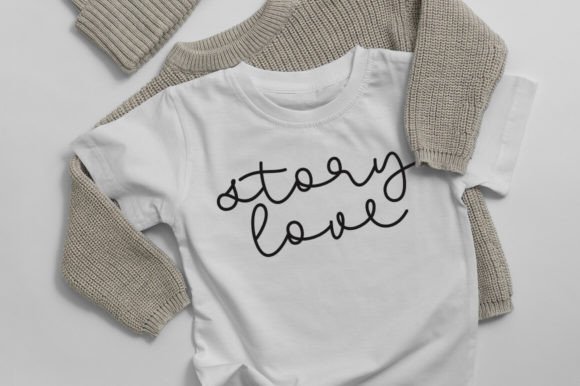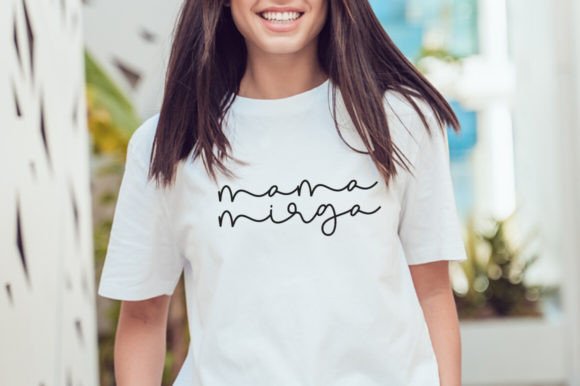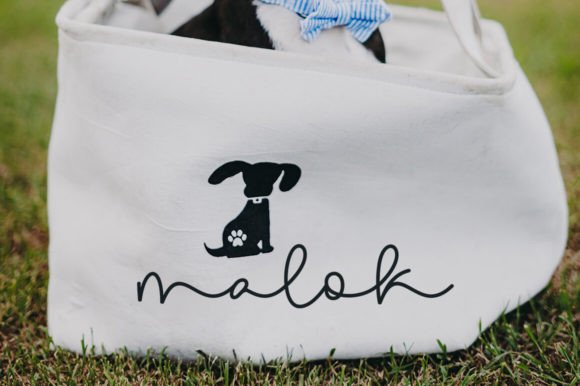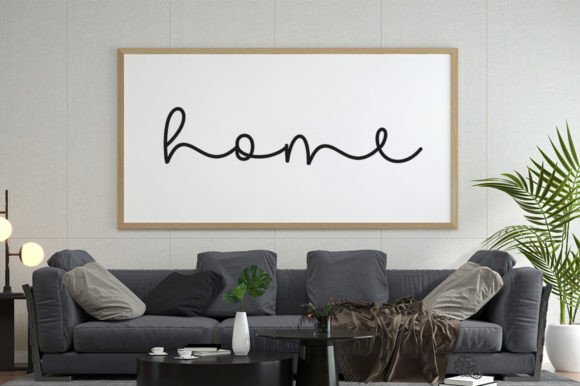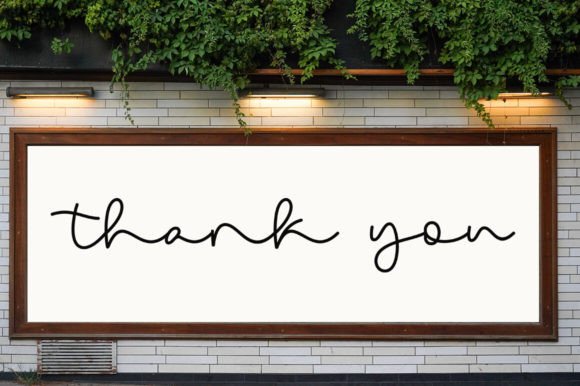
Introduction to Mosgon Font
Have you ever been working on a creative project, pouring your heart and soul into every detail, only to realize that the perfect font is missing? For designers, this is a common problem that can make or break a project. But what if I told you there’s a font that can elevate your design to the next level? Meet Mosgon Font, a beautiful handwriting font with a sweet look and flourishing character.
Mosgon Font is more than just a pretty face; it’s a valuable resource for designers who want to add a personal touch to their work. With its high-quality design, it can be used for a wide range of projects, from branding materials and social media to quotes, invitations, and business cards. And the best part? It’s a free download, making it an accessible design resource for creatives of all levels.
- High-quality font design for creative projects and designs, perfect for use as a design resource.
- Includes a range of characters and glyphs, making it suitable for use in various languages and creative applications.
- Designed with a high level of detail and precision, resulting in a crisp and clear appearance at resolutions up to 300 DPI.
Honest Review: Mosgon Font
As a designer, I’m always on the lookout for high-quality design resources to elevate my creative projects. Recently, I had the chance to try out the Mosgon Font, and I must say, it’s been a pleasant experience.
Here are some aspects that I think work well with the Mosgon Font:
- ✨ High-quality typography: The font’s clean and elegant design makes it perfect for both print and digital media.
- ✨ Versatility: The Mosgon Font comes with multiple styles, making it suitable for various creative projects, from logos to brochures.
- ⚠️ Limited customization options: While the font’s design is excellent, I wish there were more customization options available to suit different design preferences.
- ⚠️ No transparent background option: This might be a minor issue, but it would be great to have the option to remove the background, especially for designers who work with complex designs.
Overall, I’m impressed with the Mosgon Font, and I think it’s a valuable addition to any designer’s arsenal. With a few tweaks, it has the potential to become a go-to font for designers worldwide.
Common Use Cases for Mosgon Font
The Mosgon Font is a versatile design resource that can be used in a variety of creative projects, including logos, business cards, and marketing materials. It’s also a great choice for designers who want to create a modern and professional look for their designs.